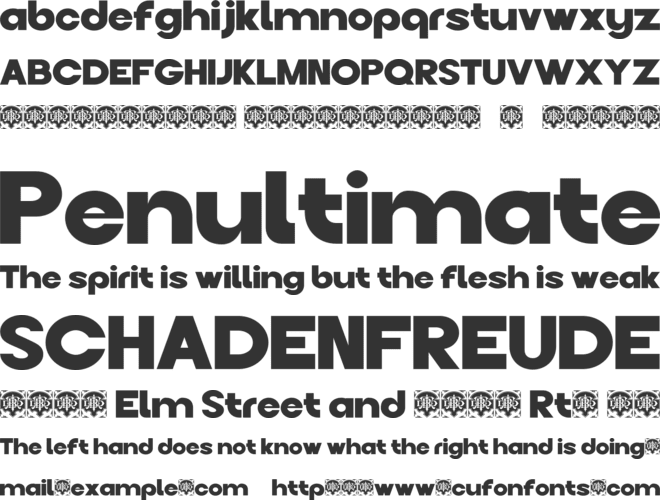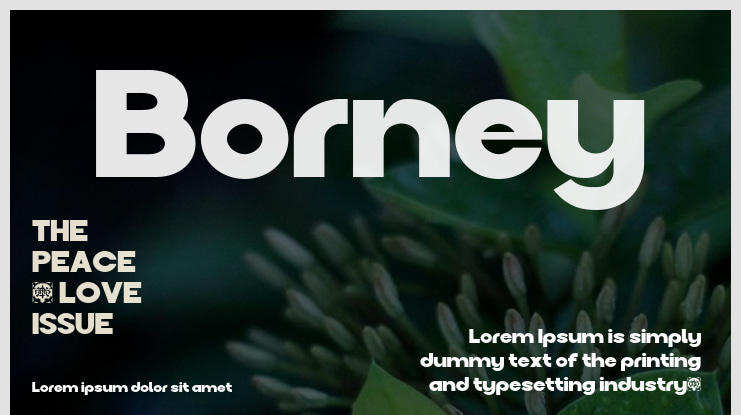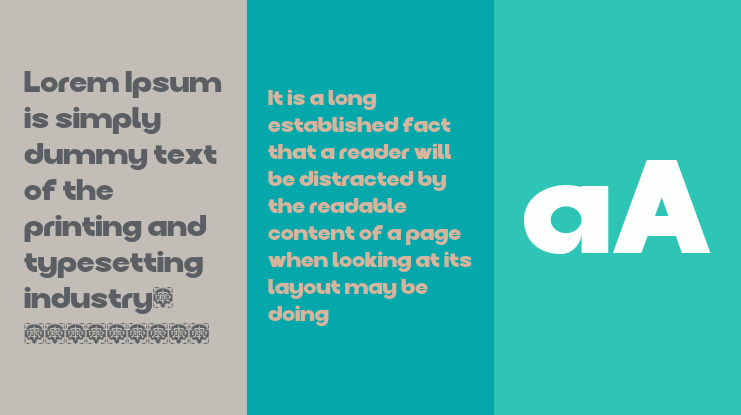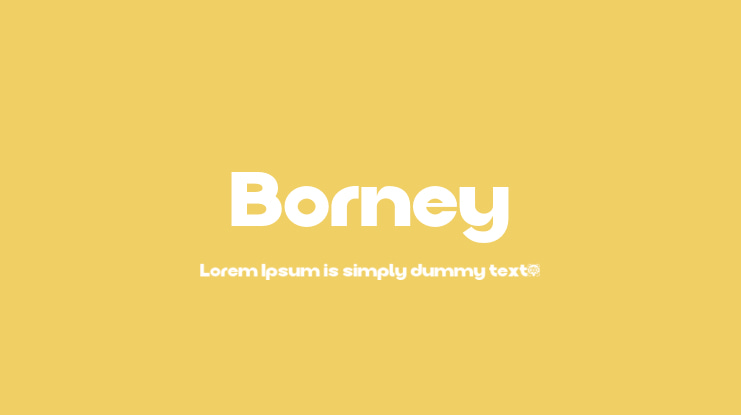
Borney Font
Experience the minimalist and modern style with our sans serif font, Borney! Characterized by its bold, clean lines and minimalistic appearance, Borney exudes a simplicity aesthetic. Favored for its professionalism and forward-thinking design, this modern sans serif is perfect for a variety of contexts including corporate branding, editorial layouts, web interfaces, signage, and product labels.